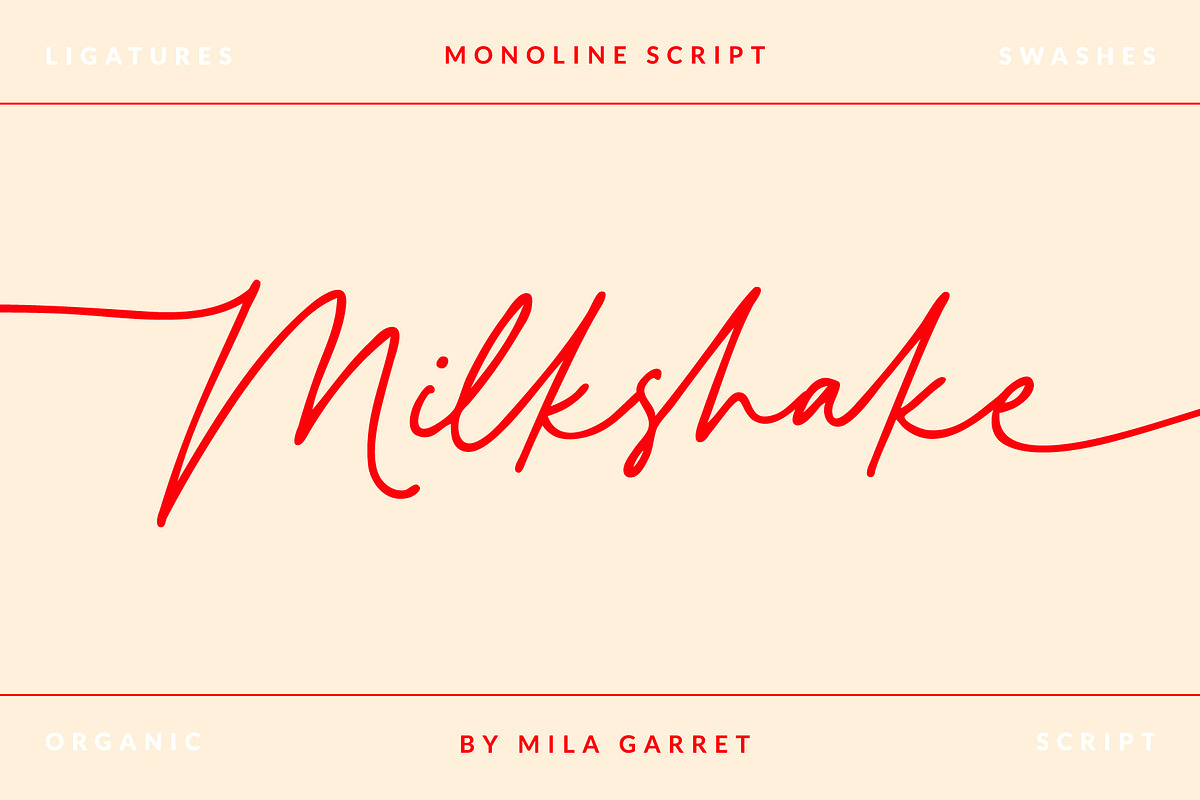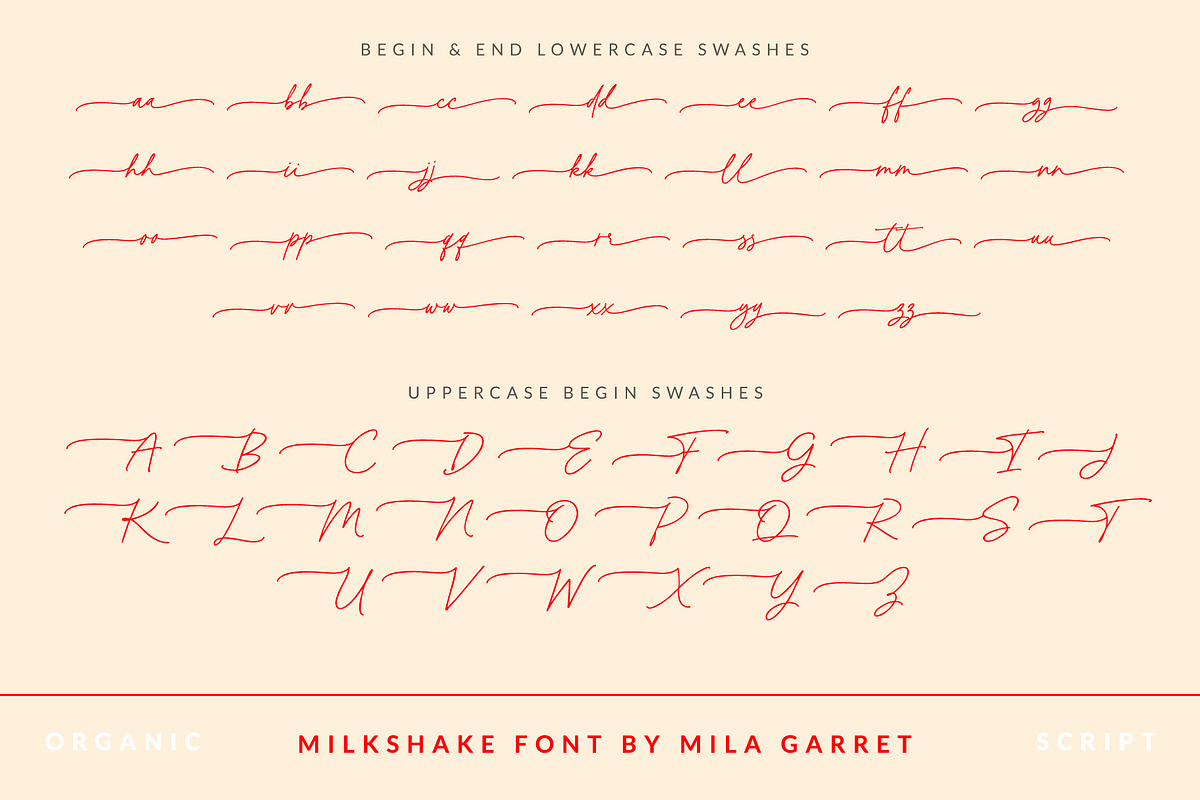
Milkshake Modern Handwritten Script
✨Meet Milkshake Script, a modern handwritten font loaded with ligatures for that handwriting look. Milkshake Script can be used for wedding invitations and wedding calligraphy, feminine or organic logos, small business branding, packaging, and more!
Modern Summer Font Features
- Full Set of standard alphabet and punctuation
- Extra set of beginning swashed lowercase
- Extra set of ending swashed lowercase
- Extra set of beginning swashed uppercase
- 99 Handwritten ligatures
- Multilingual Characters (ÁÂÄÀÅÃÆÇÐÉÊËÈÍÎÏÌÑÓÔÖÒØÕŒÞÚÛÜÙẂŴẄẀÝŶŸỲ áâäàåãæçðéêëèíîïìñóôöòøõœþßúûüùẃŵẅẁýŷÿỳŠŽšž€£¥ªº)